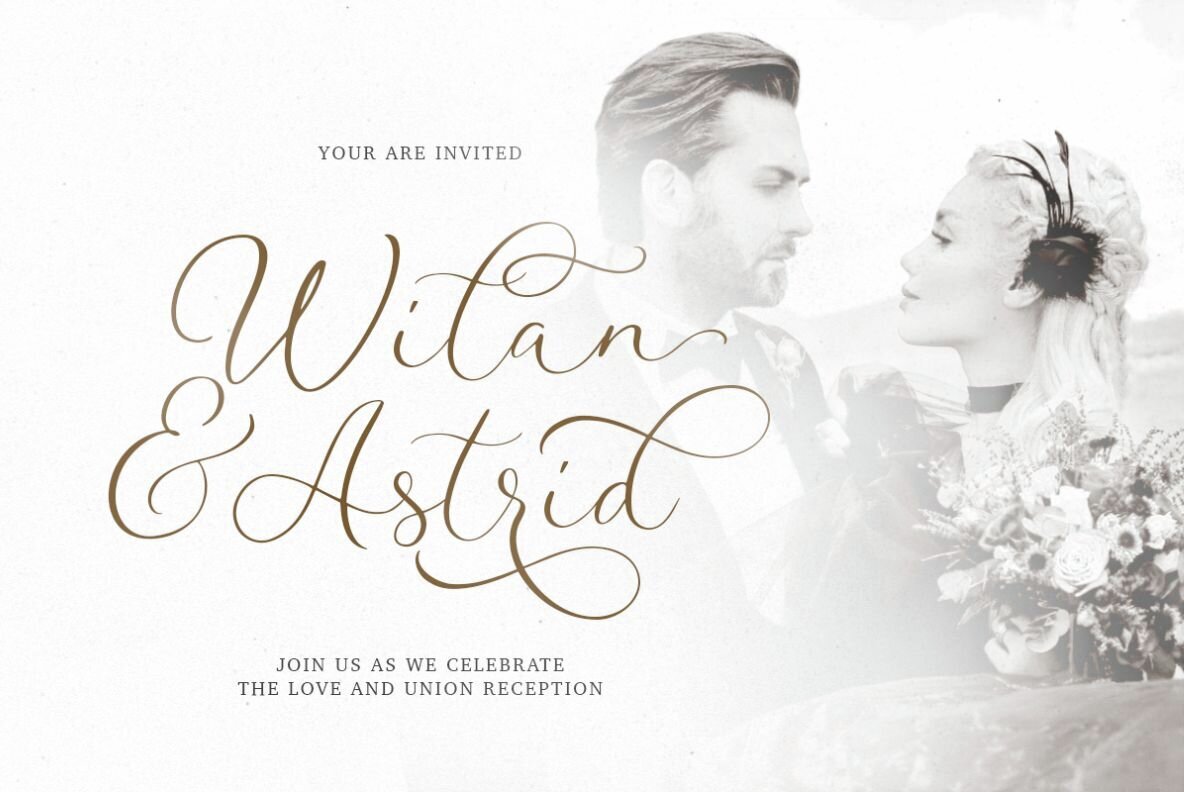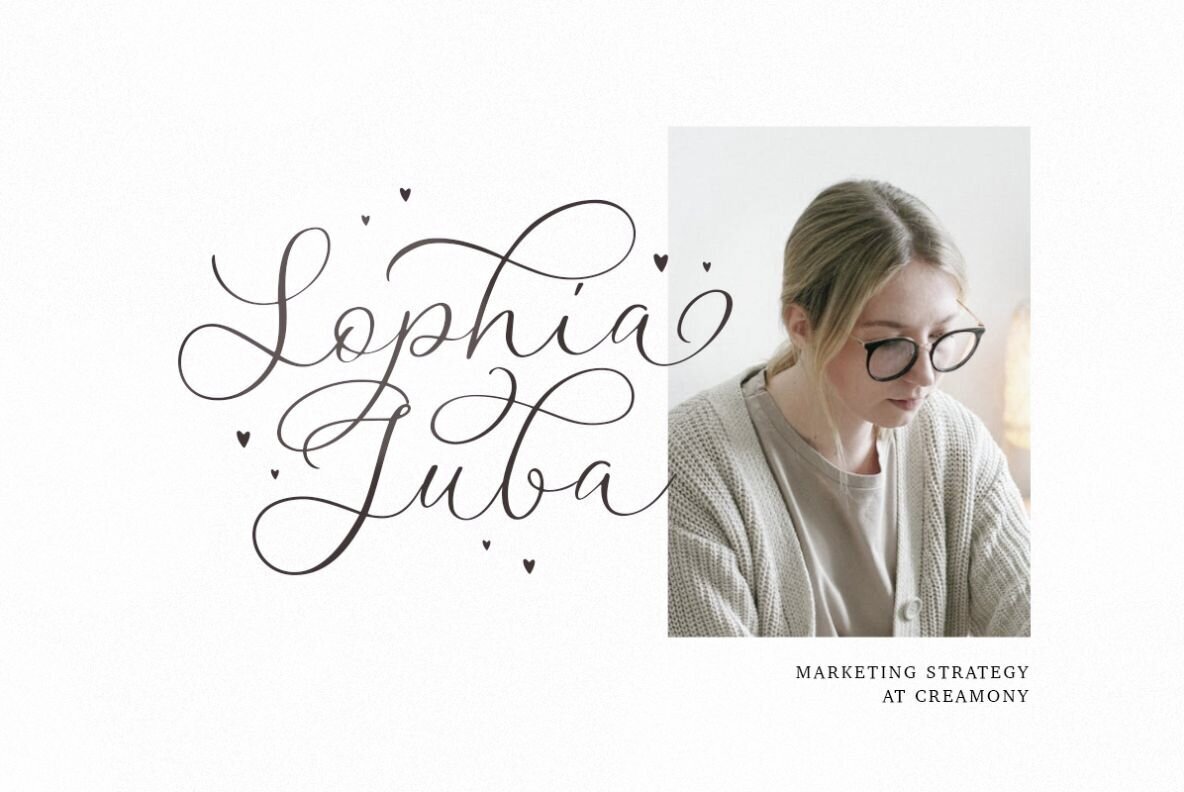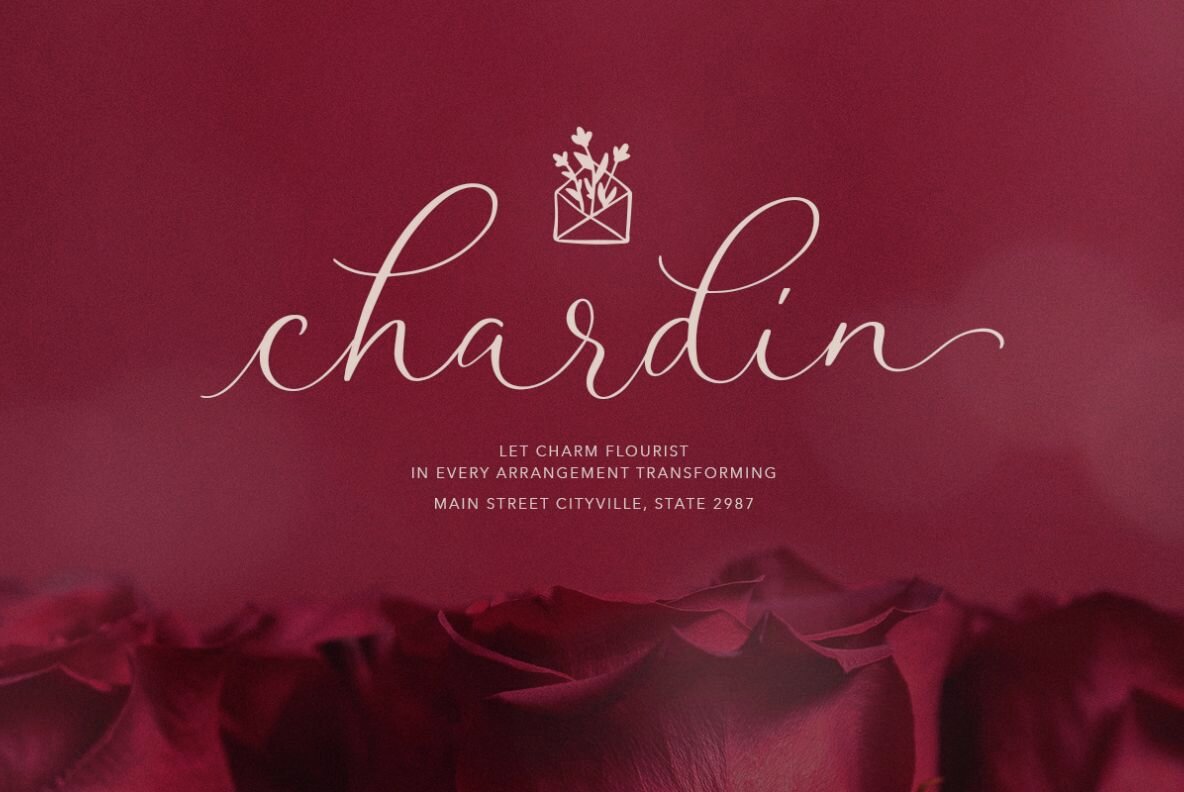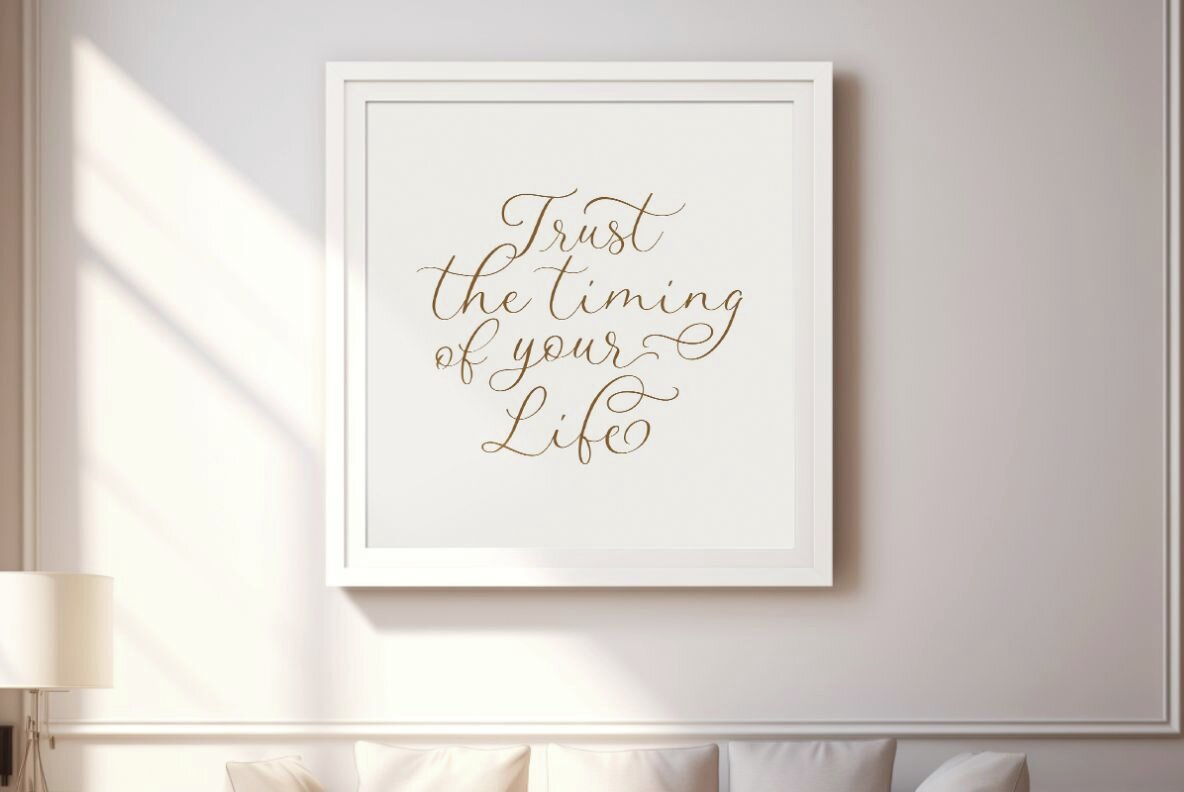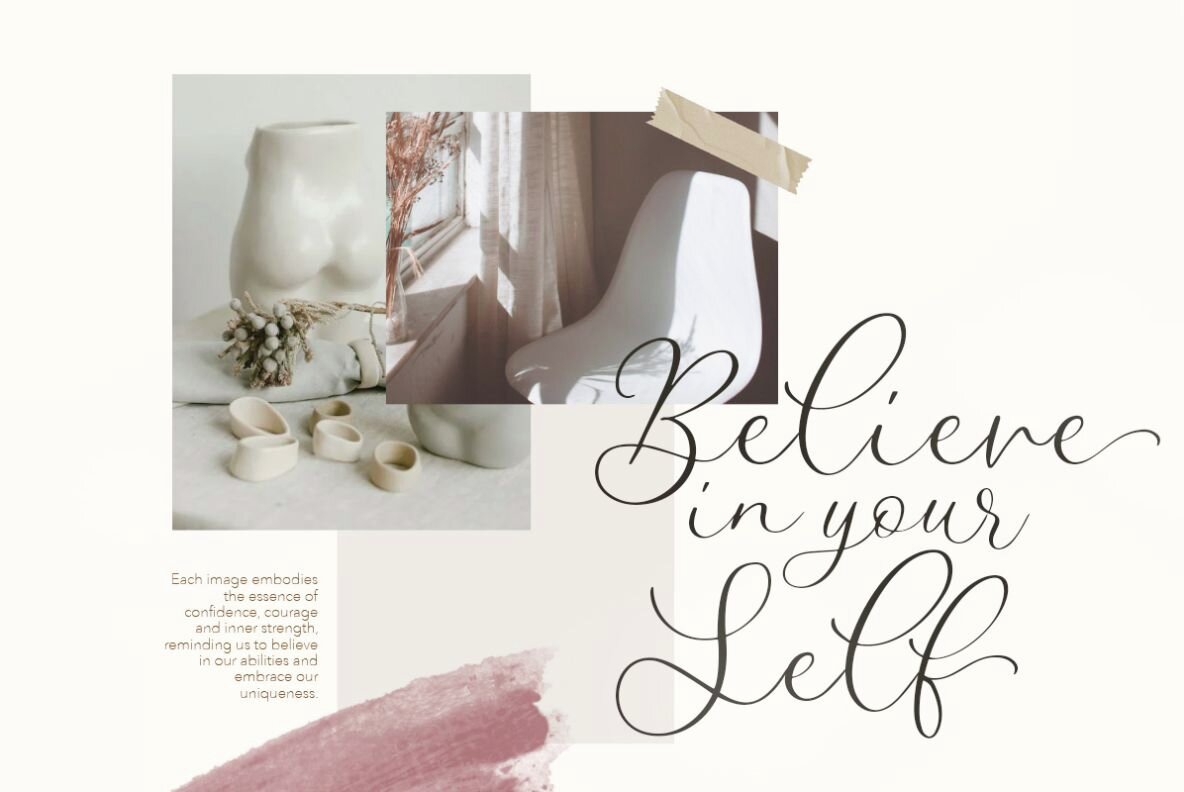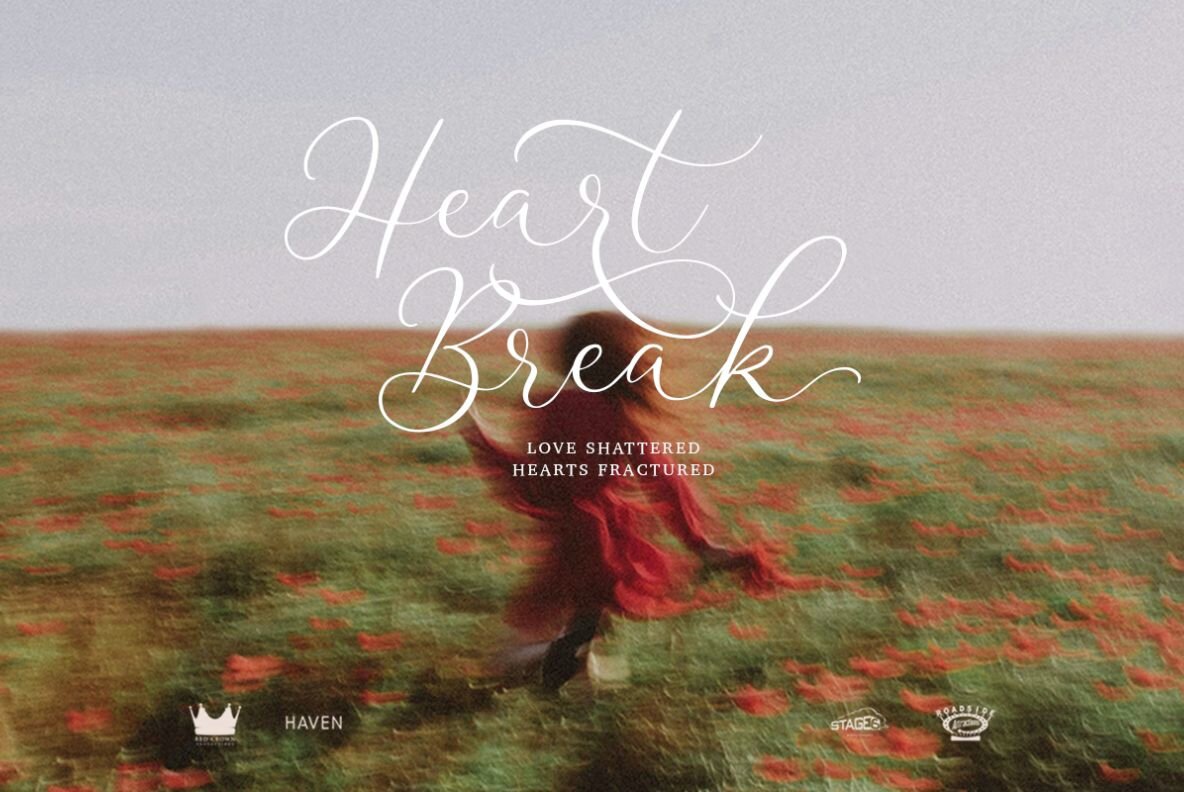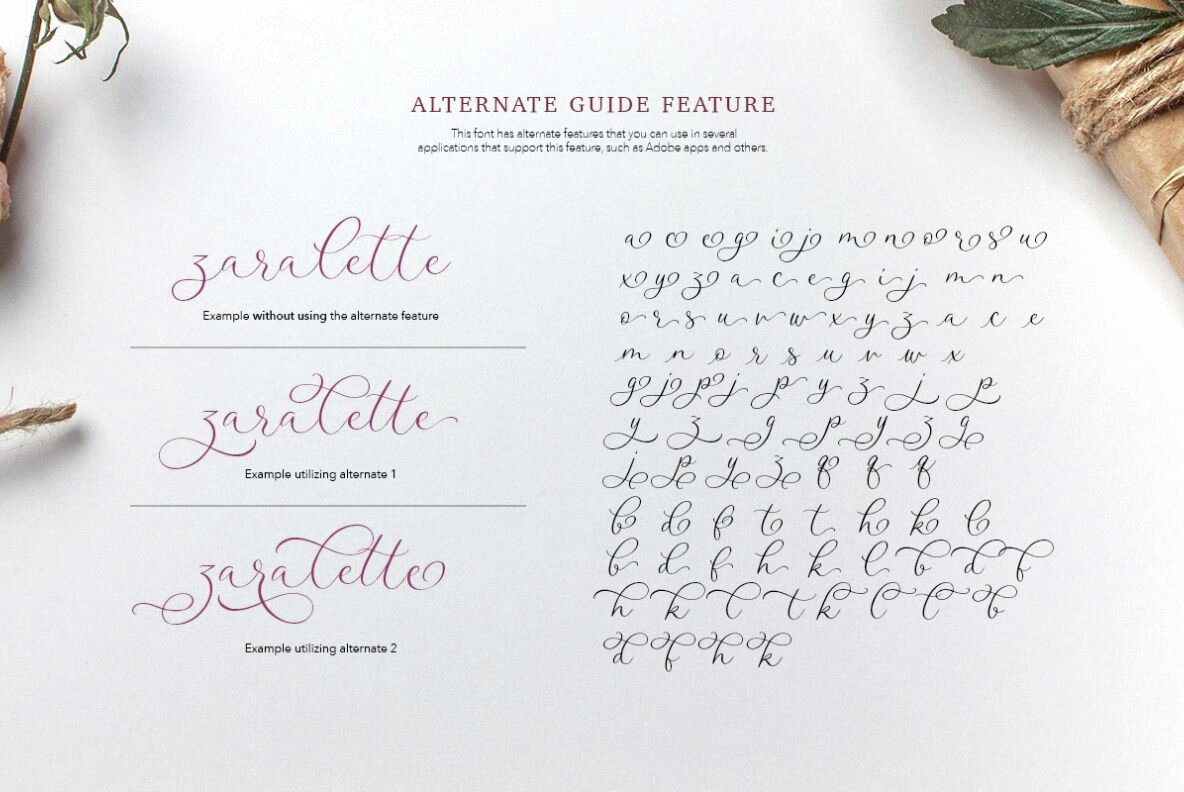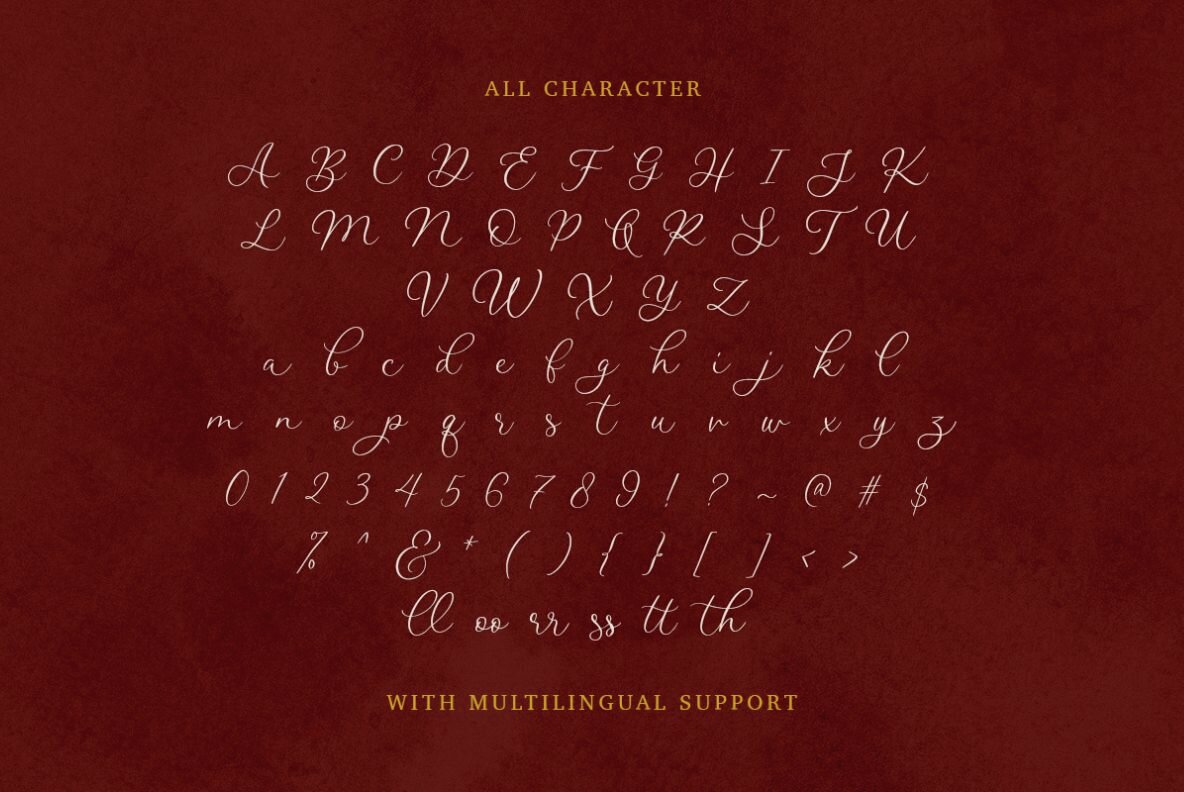
Margille Font
Margille Regular
Margille is a sophisticated handwritten script that boasts elegance and versatility. It includes lowercase and uppercase letters, symbols, and supports multiple languages. The font features ligatures, initial and terminal alternates, unique swashes, and a variety of alternates, providing extensive creative options.
Ideal for branding logos, fashion designs, wedding invitations, and handwritten quotes, Margille offers a refined aesthetic perfect for various design projects. Its rich set of features ensures your designs stand out, adding a personal and stylish touch to your work.